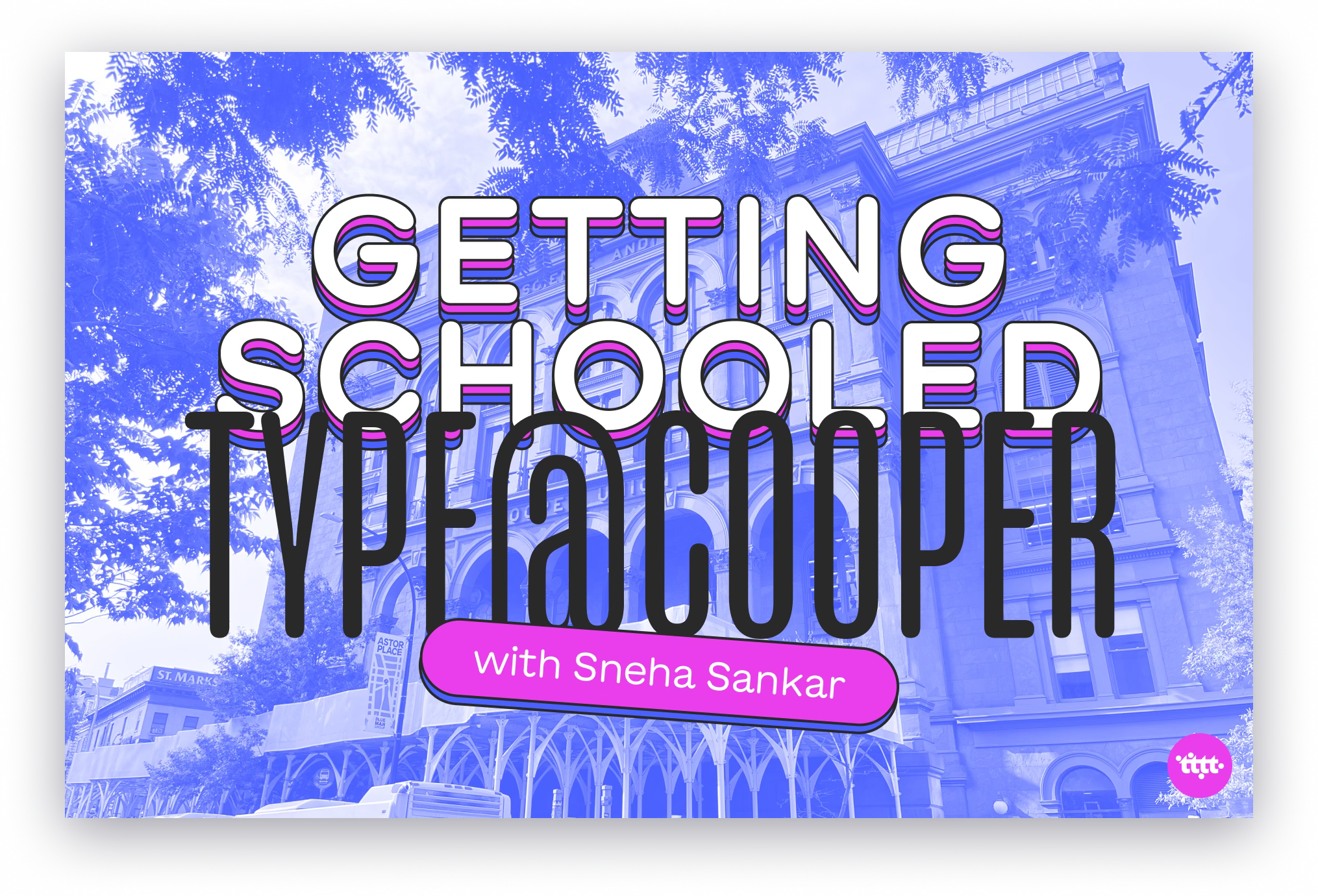
Getting Schooled: Type@Cooper
This week, we continue with Getting Schooled, featuring my experience last year at Type@Cooper.
ICYMI, Getting Schooled is a new series on tttt where we feature students and alumni from various type design programs, answering a similar set of 10 questions about their journeys before, during, and after their studies. The week before last, we had Tiffany share her experience at TypeParis.
So, here’s my time at Cooper—
1. What motivated you to choose the Type@Cooper program over other type design programs?
The short answer: New York.
The long answer: After 5 years of working full-time, I was ready for a bit of a reset, an avenue to invest in myself and my skills. If you know anything about me, you know that typography is one of the biggest loves of my life—but I’d always felt like an imposter yapping about typography without having learned at least the basics of type design. So, this was it. I wanted to pursue one of my biggest dreams—to study type design.
Over the years, I’d evaluated different programs—masters, online, summer, etc., and the Type@Cooper Condensed Program seemed ideal for what I was looking for—in-person and immersive, short but long enough, and heavily recommended by peers and alumni. Bonus: This would be my first time in New York City, and what better way to experience this illustrious city than as a summer student of type design?
For those of you wondering why not the Extended Program? From my research, the Extended Program seemed best suited for residents of New York, or at least the US, because the program is split into a few terms that required coming into the city for some in-person classes, while the rest was remote. I was hoping for a fully immersive experience, so I paused all my active projects for 7 weeks, flew to New York, and got ready to be neck-deep in letters.
2. What’s your background? Did/How did you prepare before starting the Type@Cooper program? Any insights you can share about the application process and what got you selected?
I did my undergrad in graphic design at the National Institute of Design, Ahmedabad (India), and then went on to work in-house as a brand designer in tech startups. For the past 3 years, I’ve been an independent brand designer and strategist, building my own practice and working with early-stage startups and internet companies.
My preparation began by evaluating the various programs around the world and comparing them. I then spoke to Kalapi Gajjar (co-founder of Universal Thirst) and Namrata Goyal (type designer and alum of T@C) to get their advice on pursuing the program. They both had rave reviews, and from what they described, it seemed perfect for someone like me—
big fat nerd about typography
has some typographic skills and flair
does not know if she wants to fully pivot/commit to type design as a career
could apply program learnings to professional work
No special insights about the application process other than the fact that I followed the instructions to the tee—dimensions, number of pages, etc.—no funny business. I also tried to emphasise my consistent love and flair for typography rather than my technical skills (because I’d hope that’s what I would be learning there).
3. Were there any logistical considerations you had to manage before or during the program?
YES. For those of us that need it, you’ll need an active US visa. Since Type@Cooper is a short-term/summer program, you can’t apply for a student visa.
It’s probably a good idea to apply to the program if/after you have an active visa. It would really suck to get accepted and then not be able to go because the visa waiting times are too long or it doesn’t go through for some reason.
4. Can you describe your overall experience at Type@Cooper? What stood out the most for you?
Since the program has been going on for many years now, you can really tell that they’ve nailed the curriculum and expectations. So, assuming you’ve made the cut through the application process, everyone, by and large, is able to complete the program to its minimum requirement: a text typeface (uppercase, lowercase, Latin extended, punctuation symbols, and numbers) conceptualized and designed by you within the stipulated 5 weeks.
What stood out most for me were two things:
That everyone’s typeface, no matter its inspiration or starting point, ended up novel and distinct.
The teachers’ commitment to the class and our individual strengths, weaknesses and learning. Huge shoutout and a ton of thanks to Cara, Troy, Hannes, Ewan, Sasha and all the guest lecturers <3
5. What was your favourite project or assignment during the Type@Cooper program, and why did you enjoy it so much?
Personally, I loved designing the companion italics for my typeface. After a few weeks of focusing on the upright characters of my typeface, contemplating my italics became an exercise in balancing elegance and restraint.
10. Do you have any additional thoughts, considerations, advice or suggestions for aspiring students?
DO. IT.
The 2024 Type@Cooper – Condensed Program is currently underway—yesterday was their first day! So if you’re interested in next year’s program, keep an eye out on their website.